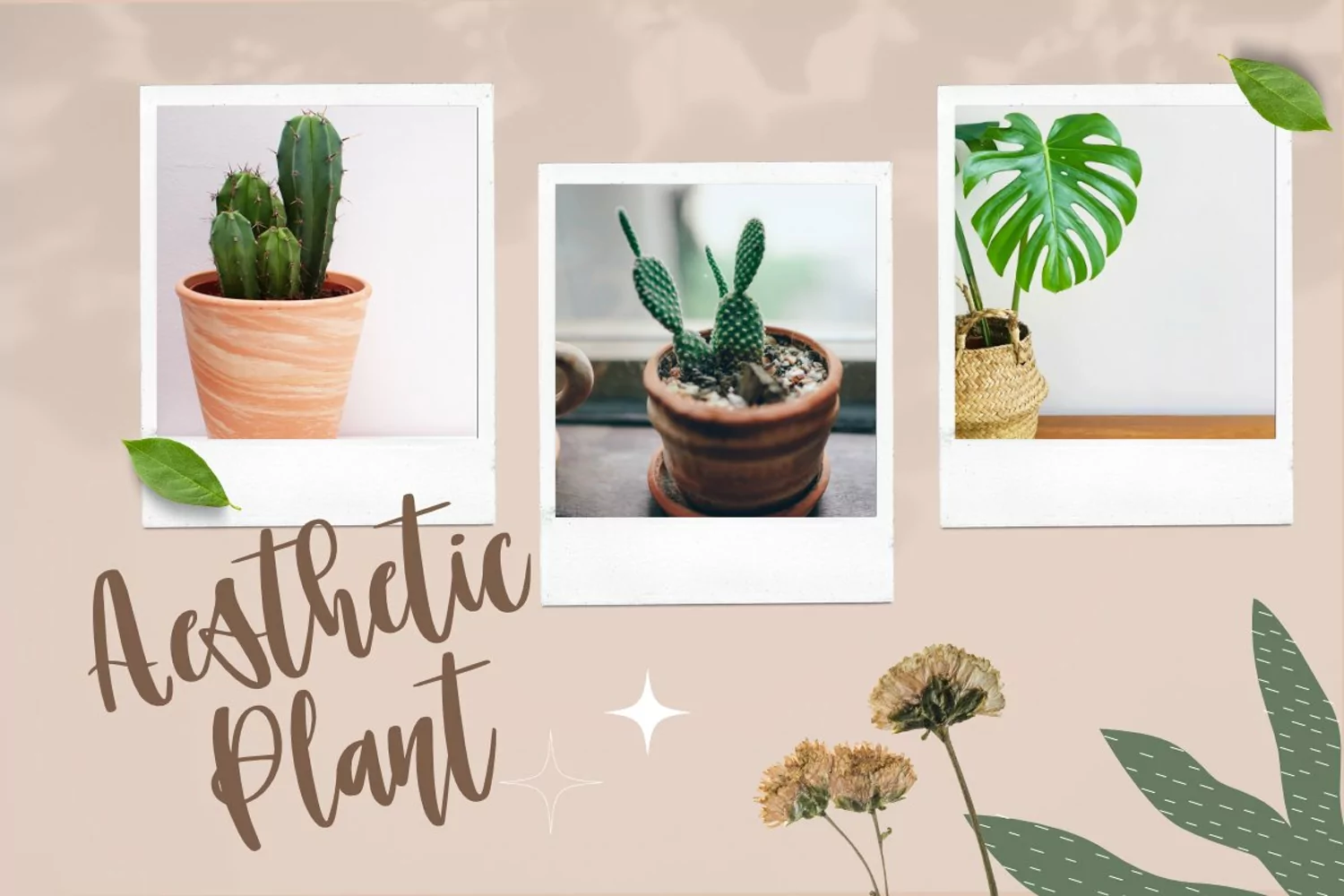
Introducing " Balynese Script "
Balynese Script Is a Script Calligraphy Font
This fonts is ideal for crafting, branding and decorate your any project. This fonts are perfect for wedding invitation or your blog. Also with their help, you can create a logo or beautiful frame for your home. Or just use for your business, book covers, stationery, marketing, magazines and more.